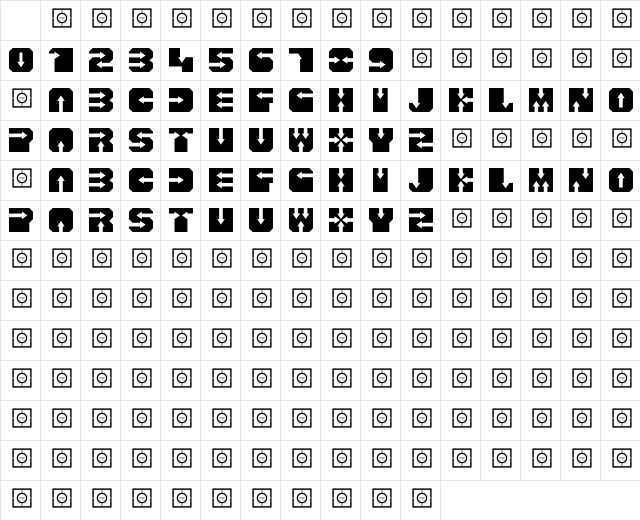
Complete AlphaBloc Direct glyph index. Displaying only characters natively supported by AlphaBloc Direct font.
AlphaBloc is a composed and adaptable typeface that performs quietly and consistently across a wide range of design contexts.